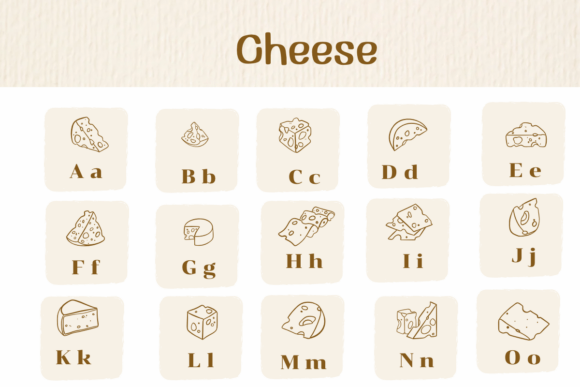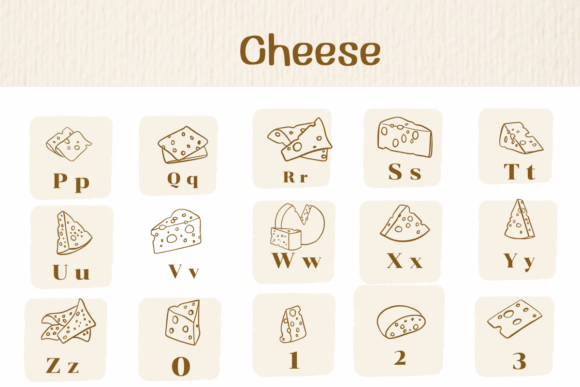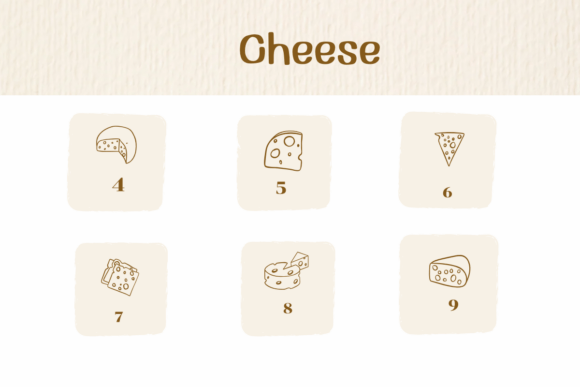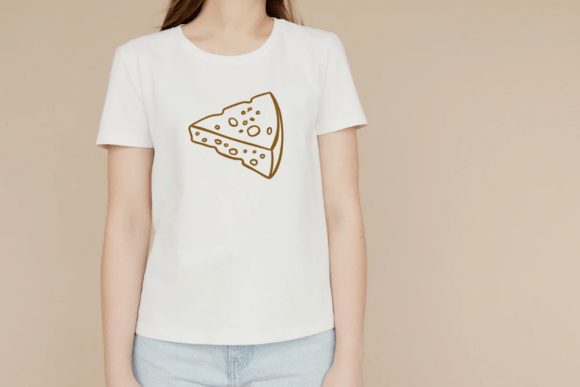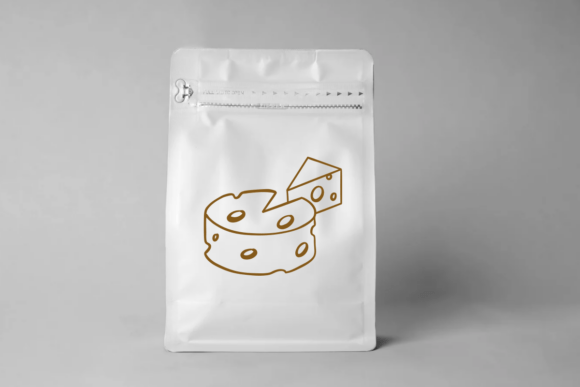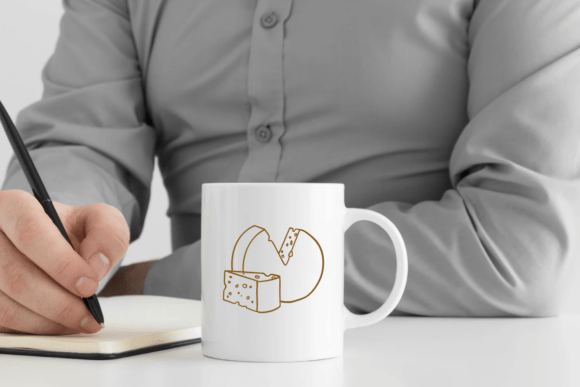
Introducing Cheese Font: The Ultimate Delight for Foodies and Designers
Are you a foodie, a designer, or a cheese lover looking for a unique and playful way to add some flavor to your projects? Look no further than Cheese Dingbats, a delightfully quirky and playful font featuring a variety of illustrated cheese icons. This dingbats set is perfect for food-themed projects, kids’ menus, culinary packaging, café branding, and whimsical DIY crafts.
The Cheesiest Font Around
Cheese Font is a one-of-a-kind dingbats set that brings a fun, cheesy touch to any design. With a wide range of illustrated cheese icons, you can add a dash of personality to your projects and make them stand out from the crowd. Whether you’re designing a menu for a trendy café, creating a kids’ party invitation, or crafting a DIY project, Cheese Font is the perfect choice.
The versatility of Cheese Font is one of its most appealing features. This font can be used for a wide range of design projects, including:
- Food-themed projects: Add a cheesy touch to your restaurant menu, food blog, or cookbook with Cheese Font.
- Kids’ menus: Make mealtime fun and engaging for kids with illustrated cheese icons.
- Culinary packaging: Stand out on store shelves with eye-catching packaging featuring Cheese Font.
- Café branding: Create a unique and memorable brand identity for your café or bakery with Cheese Font.
- Whimsical DIY crafts: Add a playful touch to your DIY projects, such as handmade cards, gift tags, or scrapbook pages.
What Makes Cheese Font So Special?
So, what sets Cheese Font apart from other fonts? Here are a few reasons why designers and crafters love this font:
- Unique and playful design: Cheese Font features a range of illustrated cheese icons that add a fun and whimsical touch to any design.
- Scalable: Cheese Font can be scaled up or down without losing any of its charm, making it perfect for a wide range of design projects.
- No calories required!: Unlike real cheese, Cheese Font won’t add any calories to your design, making it a guilt-free choice.
Tips for Using Cheese Font
Here are a few tips for getting the most out of Cheese Font:
- Mix and match icons: Combine different cheese icons to create a unique and eye-catching design.
- Experiment with colors: Try out different colors and color combinations to add depth and interest to your design.
- Pair with other fonts: Pair Cheese Font with other fonts to create a visually appealing contrast.
Cheese Font is a delightful and playful dingbats set that’s perfect for foodies, designers, and cheese lovers alike. With its unique and whimsical design, ease of use, and endless design possibilities, this font is sure to add a fun and cheesy touch to any project. So why settle for a boring, generic font when you can add some flavor to your design with Cheese Font?